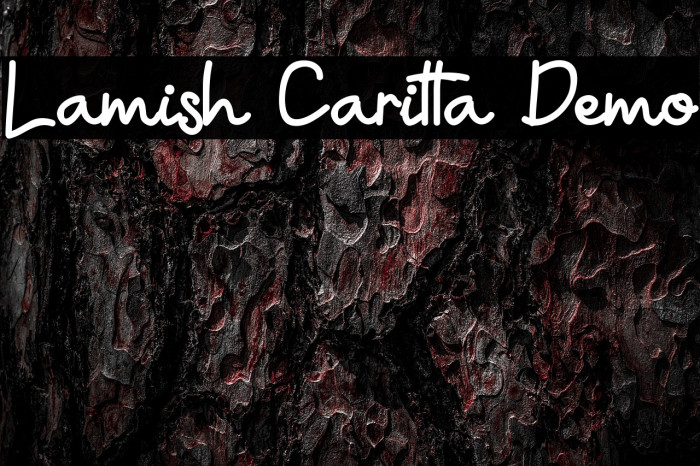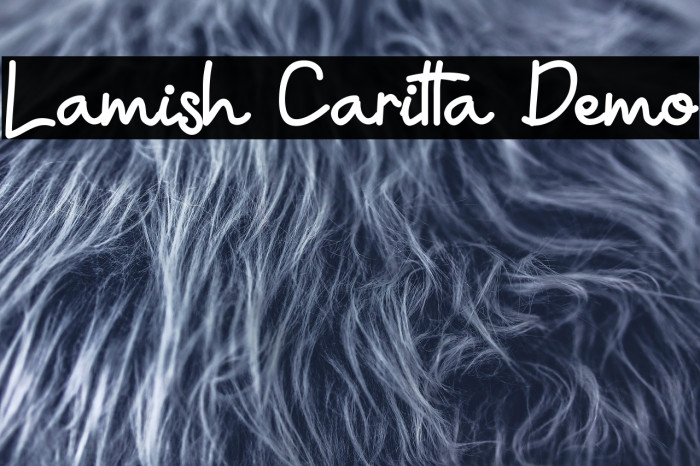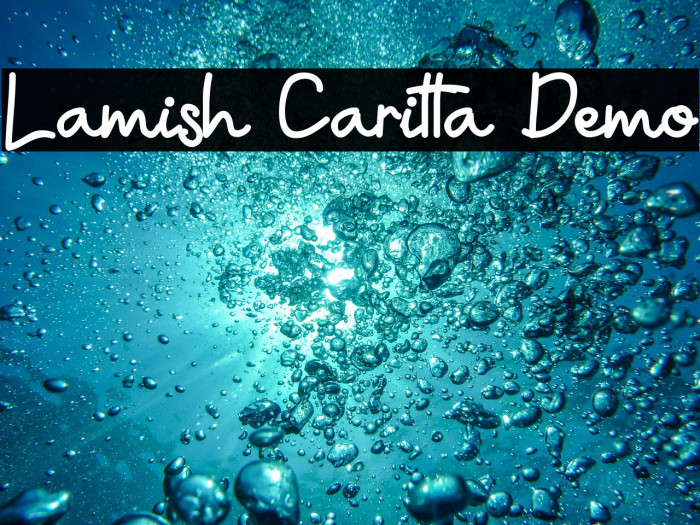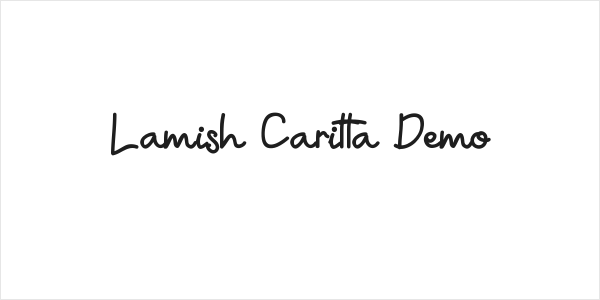
Lamish Caritta Demo Font
Lamish Caritta Demo Description
This font features a playful and casual handwritten style, characterized by its smooth, flowing lines and slightly irregular letterforms. The uppercase letters are bold and prominent, while the lowercase letters maintain a consistent flow, adding a touch of whimsy. The font's design is approachable and friendly, making it ideal for projects that require a personal touch. The characters are well-spaced, ensuring readability while maintaining the font's unique charm. Its versatility allows it to be used in various contexts, from informal invitations to creative branding projects.
Overall StyleCasual
Use CaseLogos, Headlines, Invitations
Proposed ProjectsIdeal for greeting cards, personal branding, social media graphics, and informal invitations.